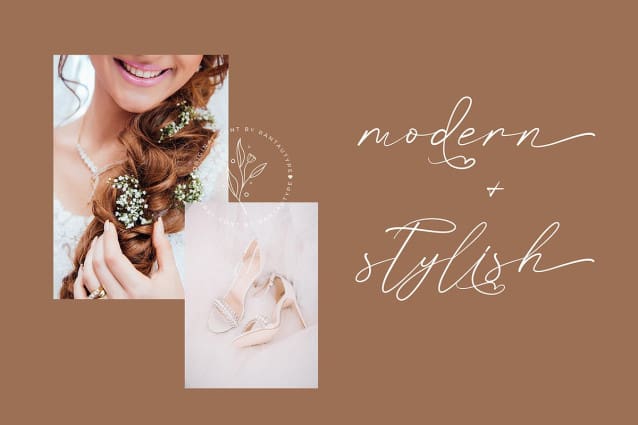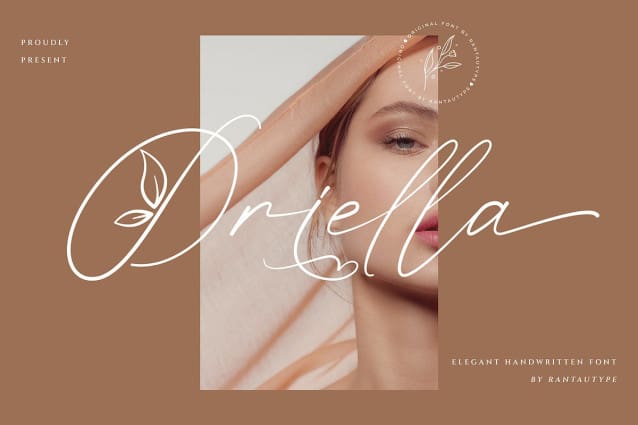
Oriella Script Font
Oriella Script font has an elegant style that can be interpreted as professional. We keep this font elegant, classy, ​​high-class, modern, easy to read, stylish, feminine, eye-catching and easy to use. There are also 2 fonts with lowercase and two uppercase fonts with leaves to make your designs more beautiful. Oriella Script is a great choice for photo watermarks, signature or signature logo designs, quotes, album covers, magazines, business cards and many other design projects. Oriella is here to take your work to the next level!!!